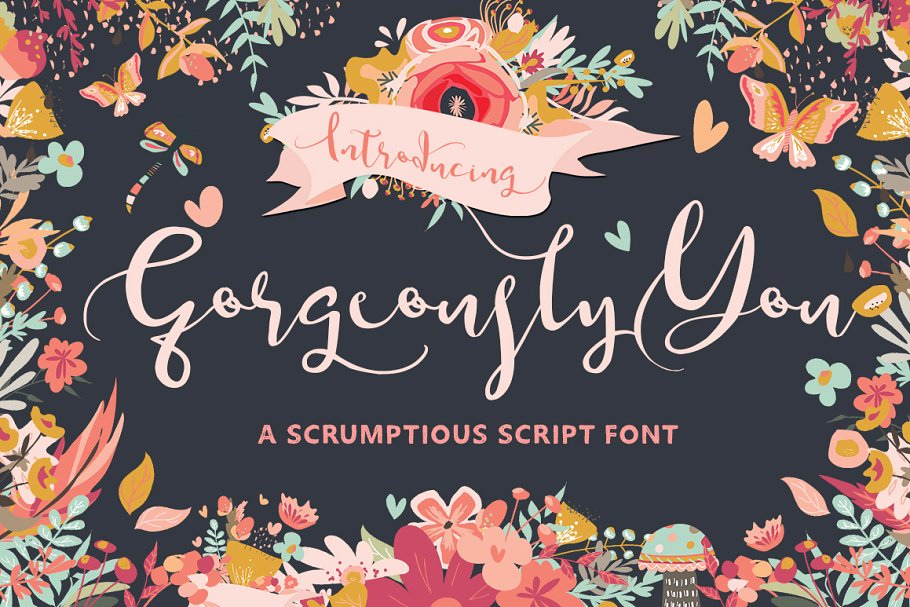
Gorgeously You Font
Gorgeously You Font excels in beauty salon branding, self-care wellness centers, empowering women's coaching services, luxury spa treatments, confidence-building workshops, personal styling consultations, inspirational lifestyle blogs, feminine empowerment campaigns, self-love product packaging, and transformational beauty experiences. This empowering typeface brings personal beauty and self-confidence celebration to any woman-focused design project.
Gorgeously You Font is exciting because it embodies the radiant confidence and inner beauty that comes from authentic self-love and personal empowerment, featuring elegant letterforms that celebrate every woman's unique gorgeousness and inspire the confidence to embrace one's individual beauty. Its affirming character instantly conveys self-worth, personal empowerment, and the beautiful truth that every woman is gorgeously herself.
Gorgeously You Font family includes Light, Regular, Medium, and Bold weights with empowering alternates, confidence-inspiring flourishes, self-love ornamental elements, and beauty celebration glyphs that enhance the empowering aesthetic, providing beauty designers with uplifting tools for creating typography that celebrates individual gorgeousness and promotes authentic self-confidence.
Beauty empowerment designers love Gorgeously You Font for its exceptional ability to convey self-confidence and personal beauty through carefully crafted letterforms. The font's empowering character and beauty-focused details create immediate associations with self-love, confidence building, and the transformational journey of recognizing and celebrating one's own unique gorgeousness and inner beauty.
The design philosophy behind Gorgeously You Font celebrates the fundamental truth that every woman possesses unique beauty and deserves to feel gorgeous, confident, and empowered in her own skin, making it particularly effective for beauty brands, wellness services, and empowerment programs that help women discover their individual gorgeousness. Beauty teams working on confidence-building experiences find this font essential.
Whether used for beauty transformation services, self-confidence coaching programs, or women's empowerment initiatives, Gorgeously You Font delivers the perfect combination of beauty celebration and personal empowerment. Its gorgeous appeal and confidence-inspiring authenticity make it an indispensable choice for brands that celebrate individual beauty, promote self-love, and empower women to embrace their gorgeously unique selves.